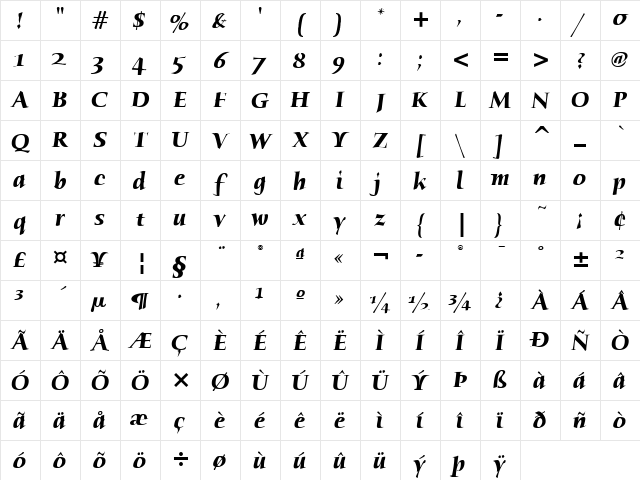
Design Context for 101! 'Tis the SeaZon
101! 'Tis the SeaZon is a composed and adaptable typeface that performs quietly and consistently across a wide range of design contexts.
Pro Tip: Use 101! 'Tis the SeaZon in both headline and body roles to test its range before committing to a single application.